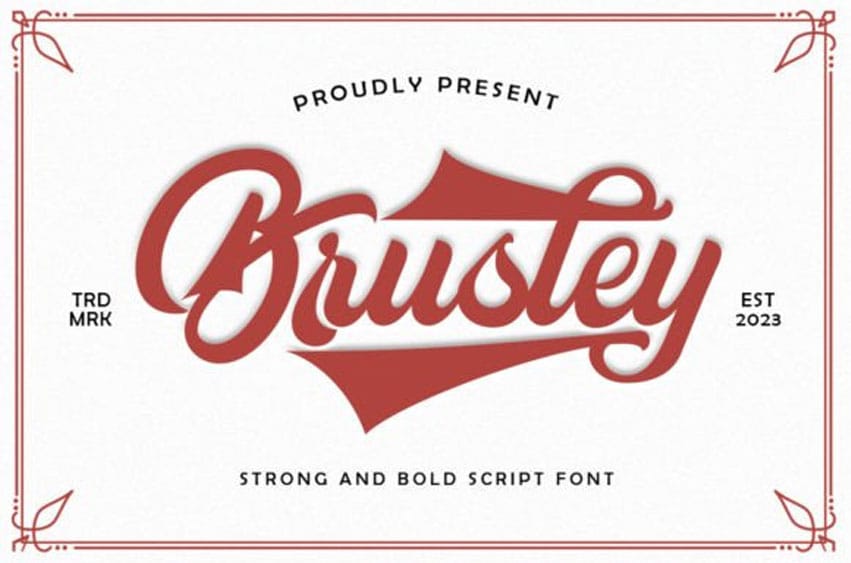
Brusley Font
Brusley Font is a bold script with classic looks.
This font is perfectly made to be applied especially in logos, and other various formal forms such as invitations, labels, logos, magazines, books, greeting/wedding cards, packaging, fashion, makeup, stationery, novels, labels, or any type of advertising purpose.